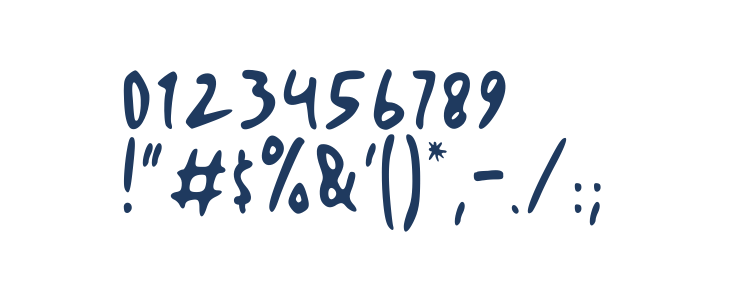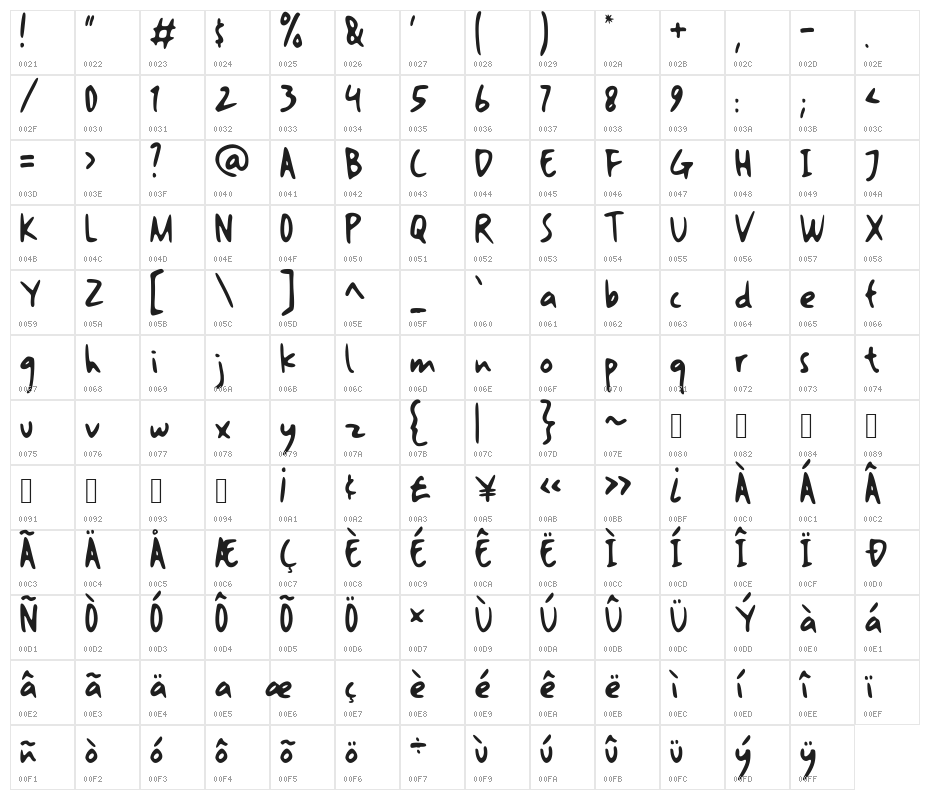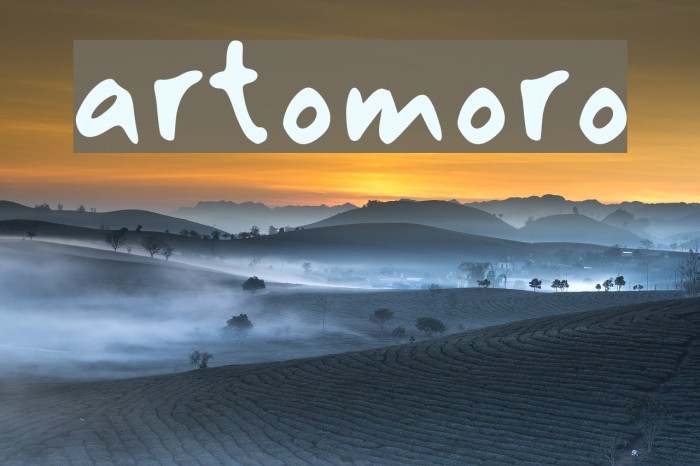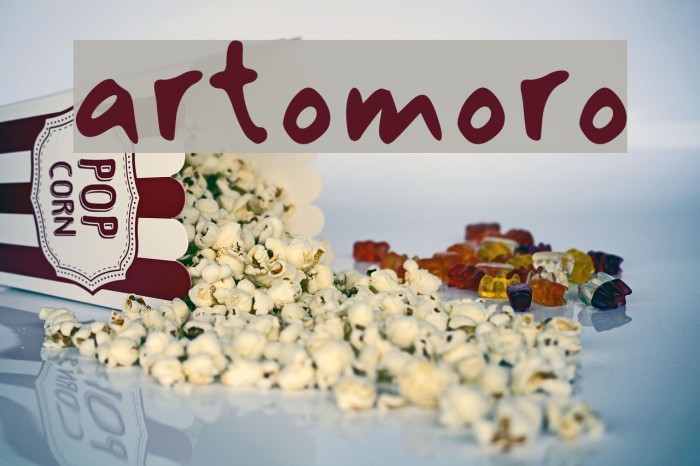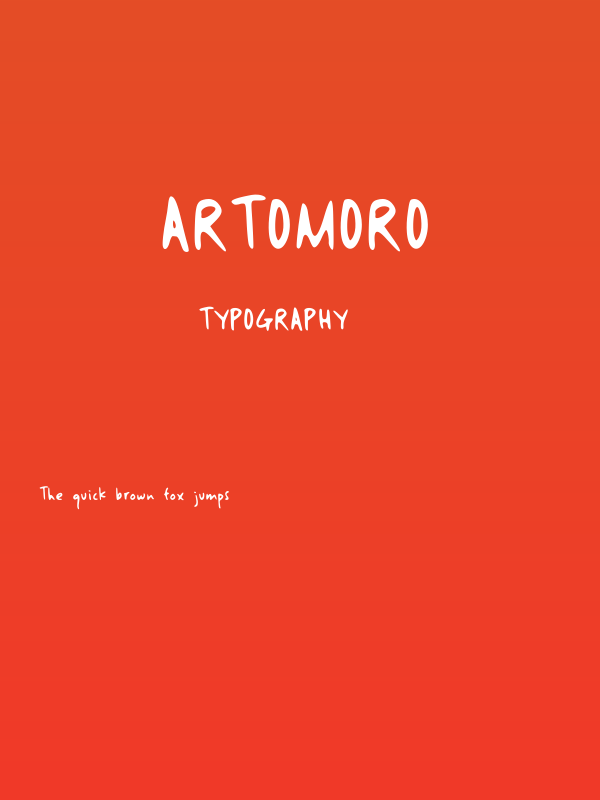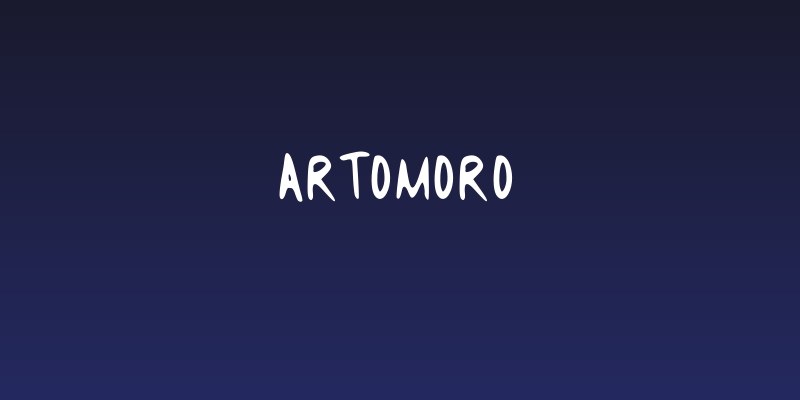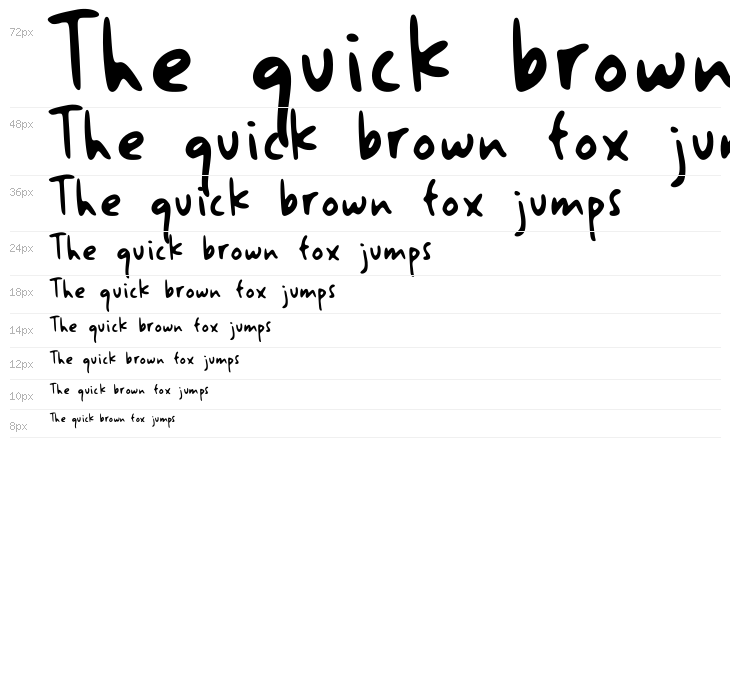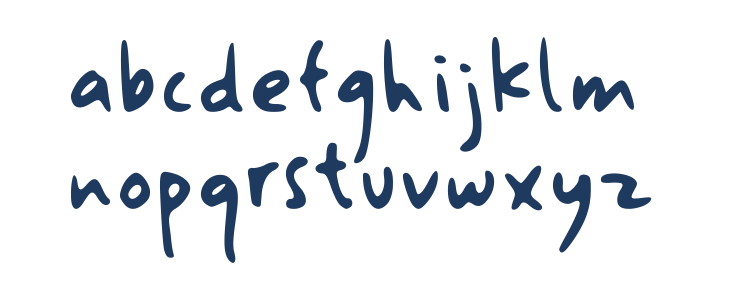
artomoro Font
artomoro Description
This font features a playful and informal handwritten style, characterized by its bold and slightly irregular strokes. The letters have a casual, freeform appearance, with varying heights and widths that give it a lively and dynamic feel. The uppercase letters are bold and prominent, while the lowercase letters maintain a consistent flow, adding to the font's approachable and friendly nature. The numerals and special characters follow the same playful design, ensuring a cohesive look across all elements. This font is ideal for projects that require a personal touch or a fun, informal aesthetic.
Overall StylePlayful
Use CaseLogos, Headlines, Informal Text
Proposed ProjectsGreat for greeting cards, children's books, playful branding, and casual invitations.